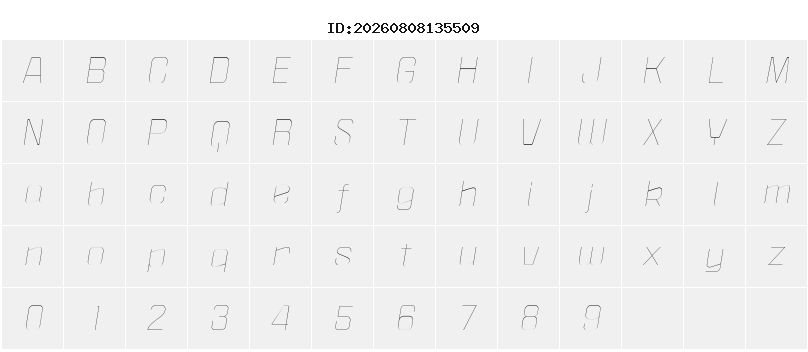
• Font Name: Politica XT
• Font Style: Thin Italic
• Designer: Alejandro Paul & Alfredo Graziani
• Manufacturer: Alejandro Paul
About Politica XT.ttf
Politica XT.ttf is a modern, elegant sans-serif font designed for ultimate readability and visual harmony. Perfect for branding, headlines, web design, and print materials.